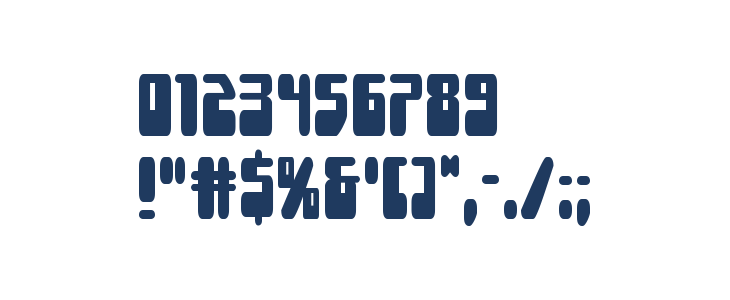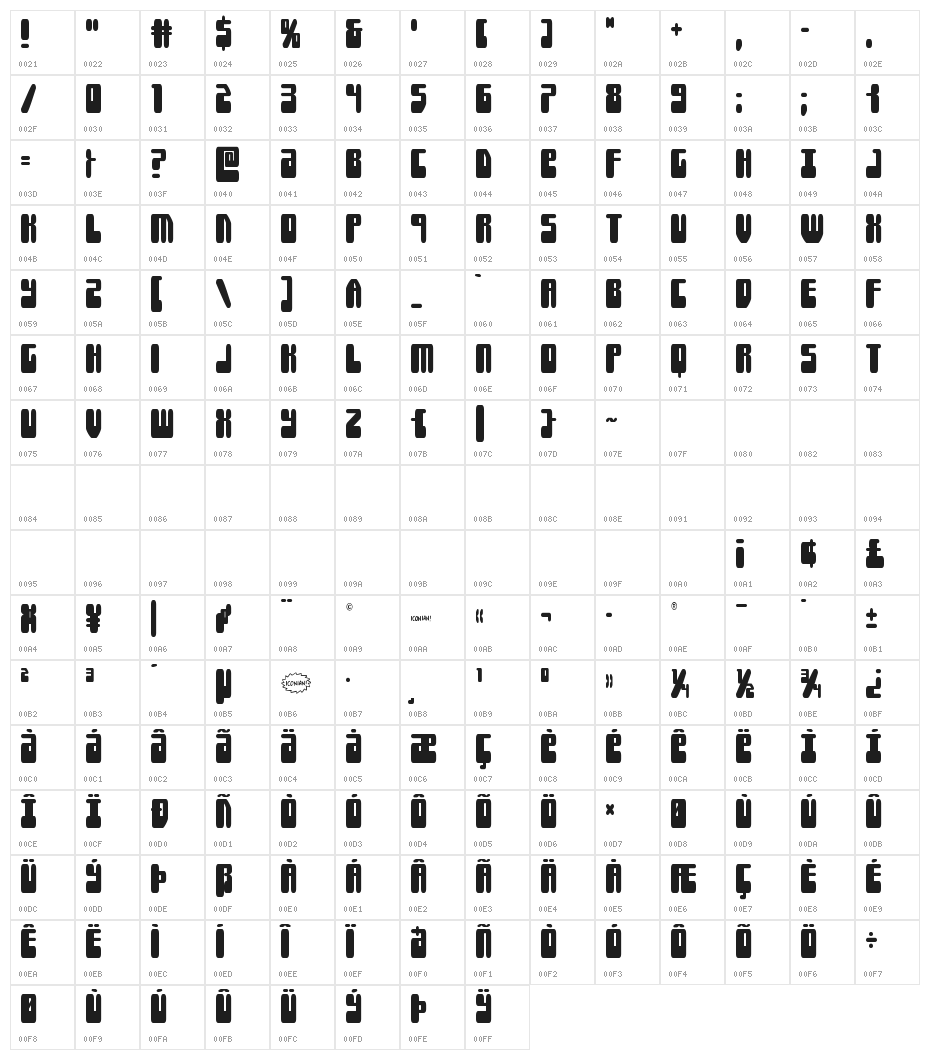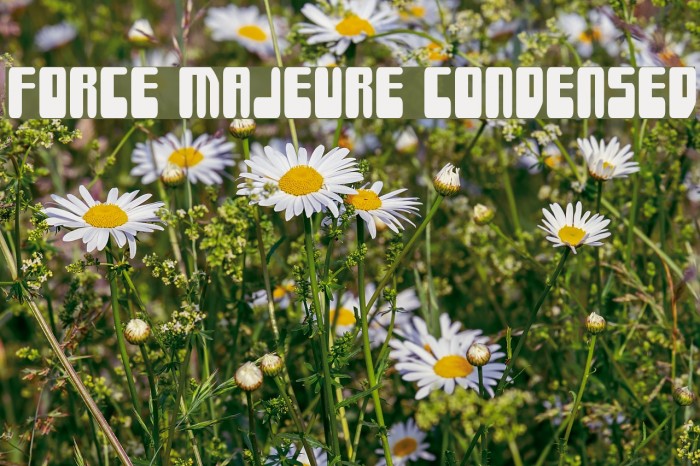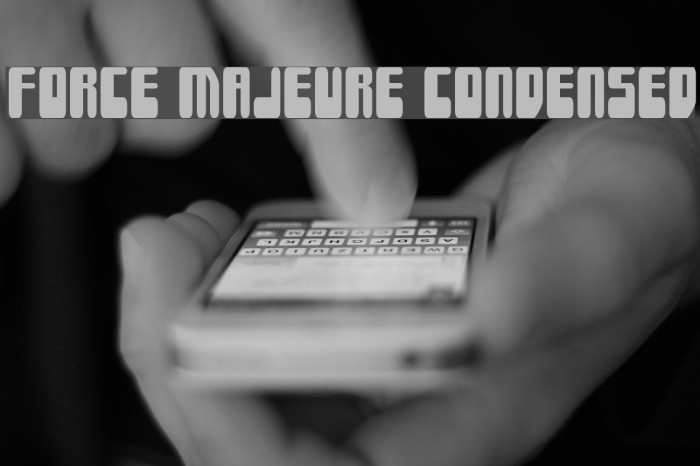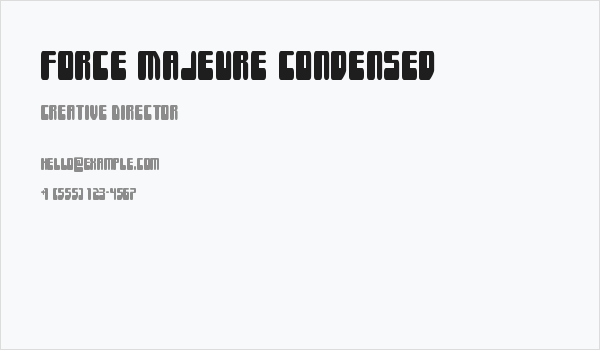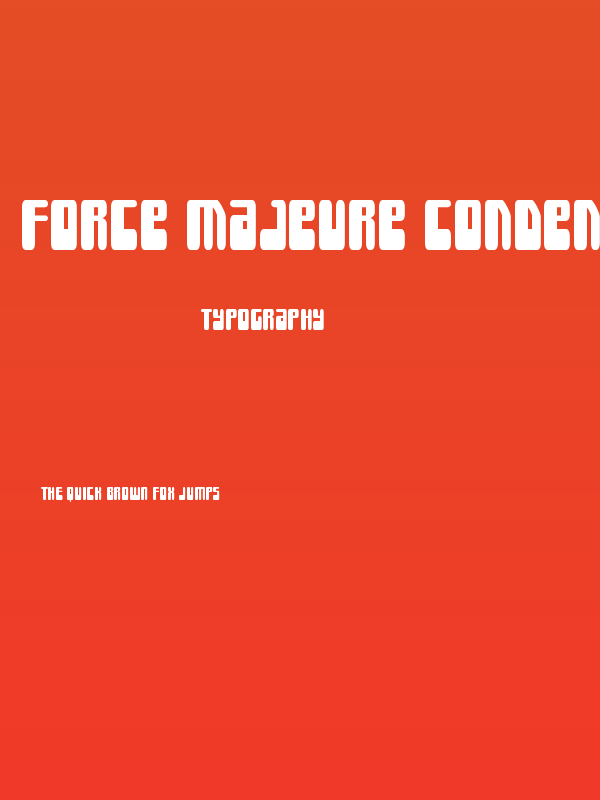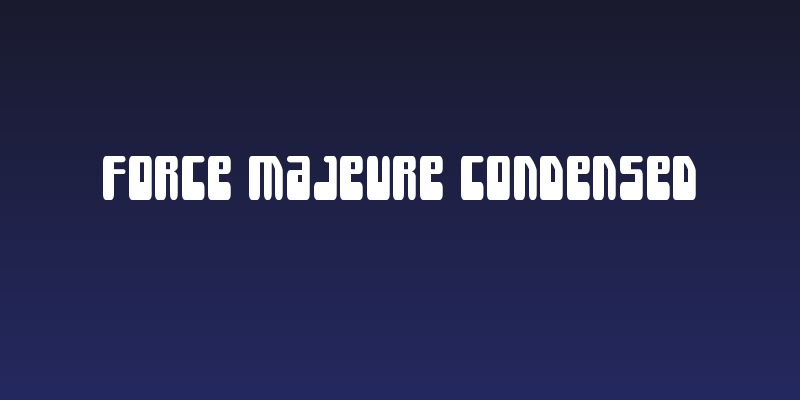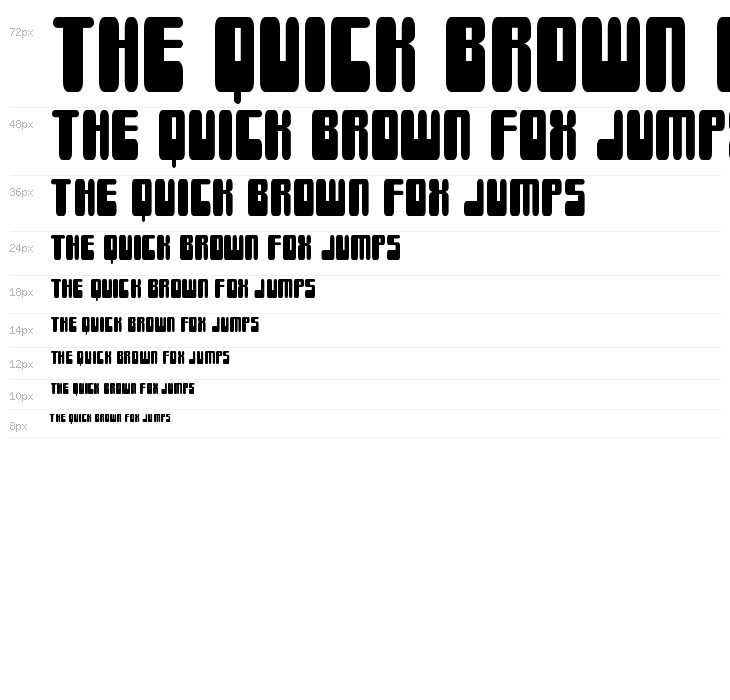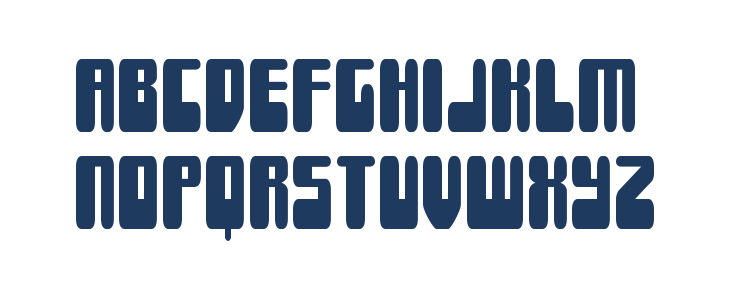
Force Majeure Condensed Font
Force Majeure Condensed Description
This font features a bold, geometric style with a distinctly modern and futuristic feel. The characters are condensed, with a strong emphasis on vertical lines and rounded corners, creating a unique blend of rigidity and softness. The uppercase and lowercase letters maintain a consistent height, contributing to a uniform appearance. The numerals and special characters follow the same design principles, ensuring a cohesive look across all elements. This font's boldness and distinctiveness make it ideal for attention-grabbing designs.
| Proposed Projects | Ideal for branding, posters, headlines, and any design requiring a strong, modern aesthetic. |